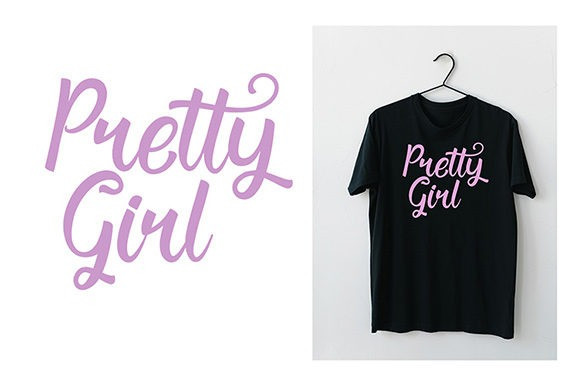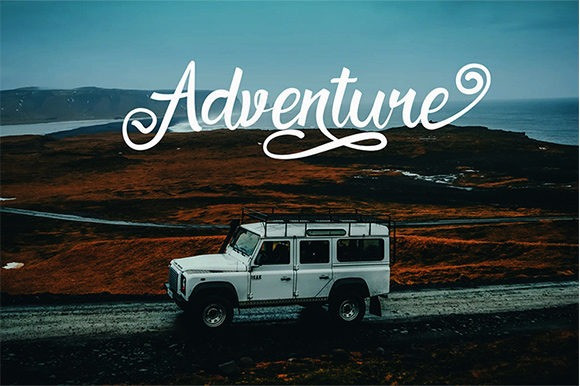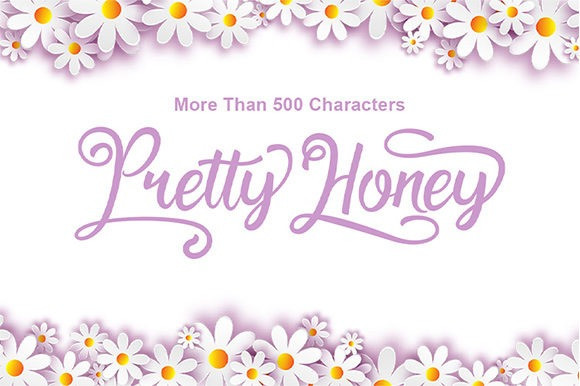
Handsome Calligraphy Font
Handsome is a sweet and cursive handwritten font. This gentle font will look gorgeous on a variety of design ideas. It will add a joyful and romantic touch to each of your projects!